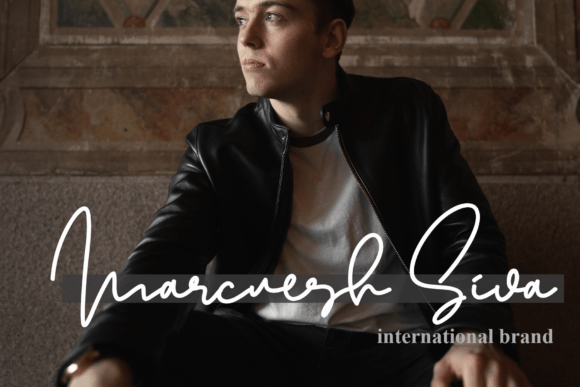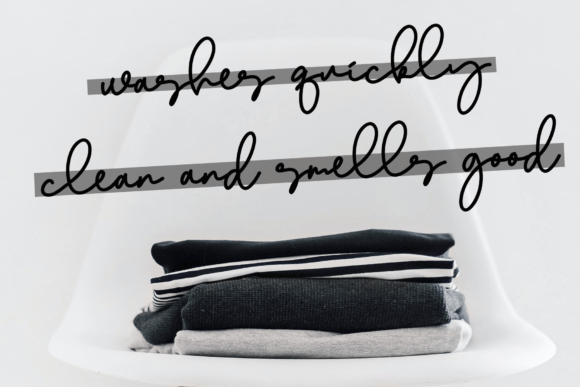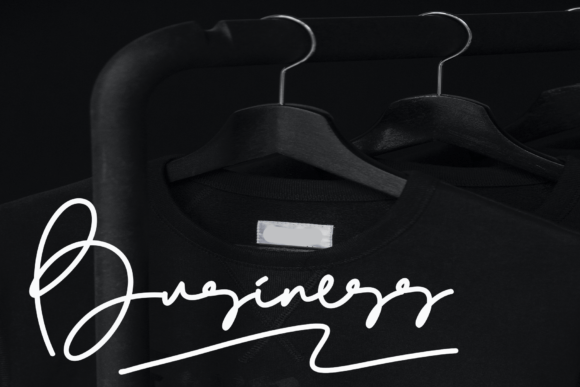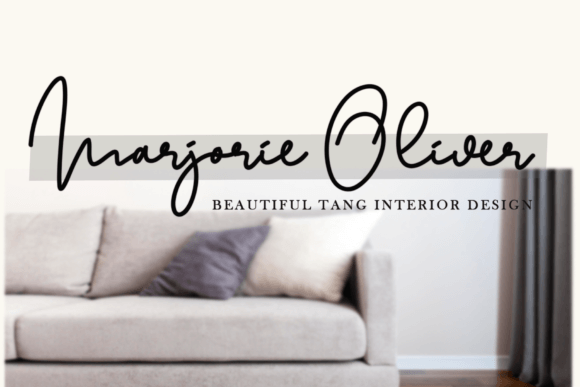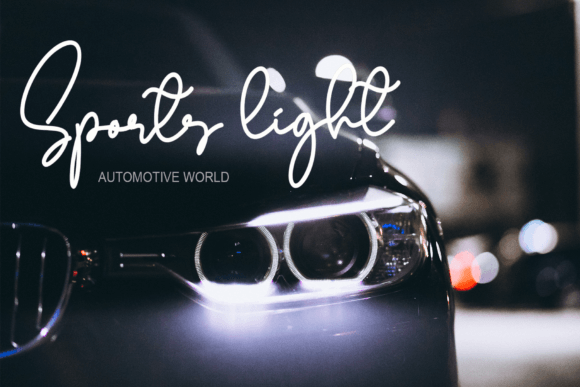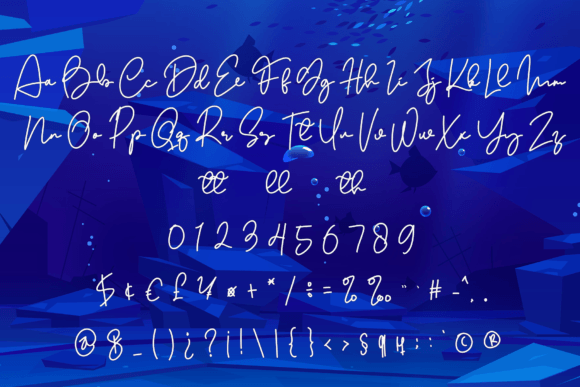
The Perfect Touch of Elegance: Introducing the Blush Font
Remember the thrill of finally finding the perfect font for your design project? It’s like stumbling upon a hidden treasure that elevates your entire creative vision. For designers, the quest for the ideal font is a constant pursuit. And, we’re excited to introduce you to one that’s sure to become a favorite: the Blush Font.
This stylish and elegant signature script font is designed to make a statement. Whether you’re creating product packaging, branding projects, or wedding invitations, the Blush Font adds a touch of sophistication and romance to any design. Its versatility and beauty make it a valuable asset for designers who want to take their work to the next level.
With the Blush Font, you’ll be able to create stunning visuals that capture attention and leave a lasting impression. Its unique charm and character will make your designs stand out in a crowded market, setting you apart from the competition.
Key Features of Blush Font
- Font Family: Blush is a script font, characterized by its elegant and feminine style.
- Size: The font is available in 6 different font sizes, ranging from 48 to 72 points.
- Resolution: Optimized for high-resolution displays, with a recommended resolution of 300 DPI.
- Unique Characteristics: Blush features a unique, handwritten style with subtle imperfections, giving it a personal touch.
- Language Support: Supports a wide range of languages, including Latin, Greek, and Cyrillic scripts.
- Font Style: Available in regular, bold, and italic styles, making it versatile for various design applications.
Designer Review: Blush Font
As a designer, I was initially drawn to the Blush Font due to its unique, hand-written aesthetic āØ. The font’s imperfections and subtle flair add a touch of elegance and sophistication to any design project. The Blush Font is particularly well-suited for projects that require a sense of romance, whimsy, or nostalgia.
Some of the standout features of the Blush Font include:
- Its versatility in various design contexts, from wedding invitations to greeting cards
- Its ability to evoke a sense of warmth and personality in digital and print designs
- Its seamless integration with a wide range of color schemes and typography styles
However, I do have a few concerns about the Blush Font ā ļø:
- Its readability can be compromised at smaller font sizes, making it challenging to use in text-heavy designs
- Its limited font weight options may limit its use in certain design scenarios
- Its reliance on a specific style or aesthetic may make it less suitable for projects with a more modern or minimalist tone
Overall, I think the Blush Font is a great choice for designers looking to add a touch of personality and whimsy to their projects. While it may have some limitations, its unique aesthetic and versatility make it a valuable addition to any design toolkit.
Tips for Getting the Most Out of Blush Font
For optimal results, use Blush Font in conjunction with pastel colors and soft textures. This will create a romantic and feminine aesthetic. Experiment with different font sizes and styles to add visual interest.
Blush Font is commonly used in wedding invitations, baby shower invitations, and other feminine-themed designs. It’s also a popular choice for social media graphics and blog headers.
Alternative Fonts to Blush
Lobster Font is a cursive script font that is perfect for creating a warm and inviting atmosphere. It is ideal for use in headings, titles, and other design elements where a touch of elegance is needed. Lobster Font is more ornate and elaborate compared to Blush Font, making it a great choice for designs that require a bit more flair.
Pacifico Font is a beautiful, elegant script font that is reminiscent of a tropical getaway. It is perfect for use in designs that require a touch of sophistication and relaxation. Pacifico Font is more refined and subtle compared to Blush Font, making it a great choice for designs that require a bit more restraint.